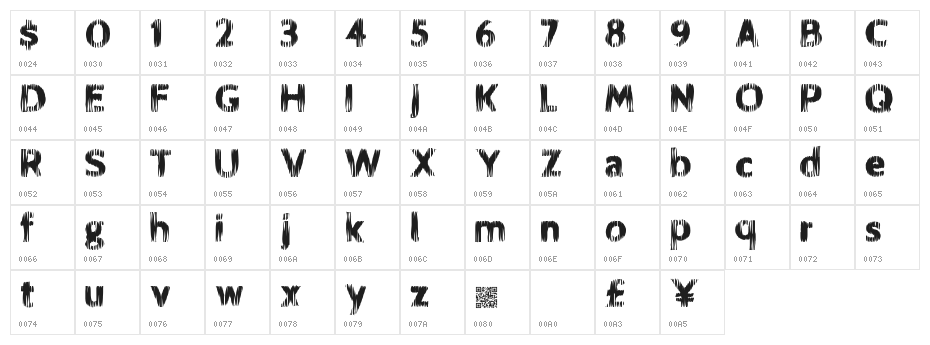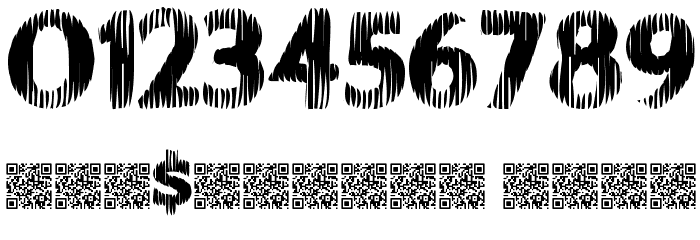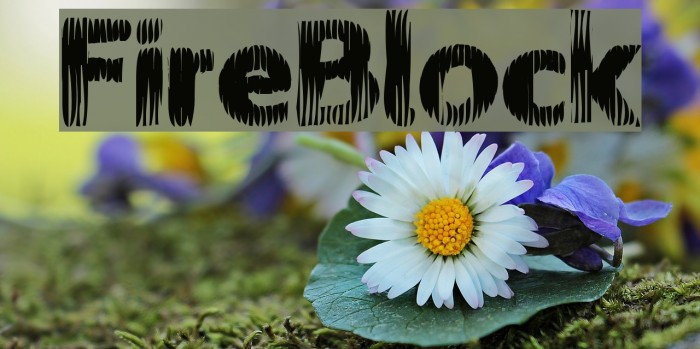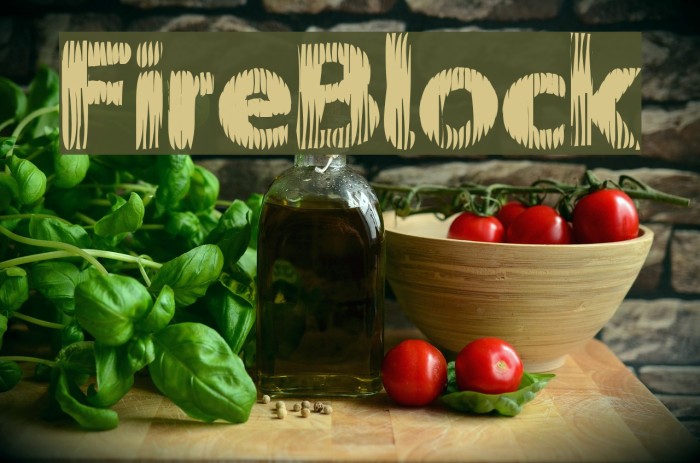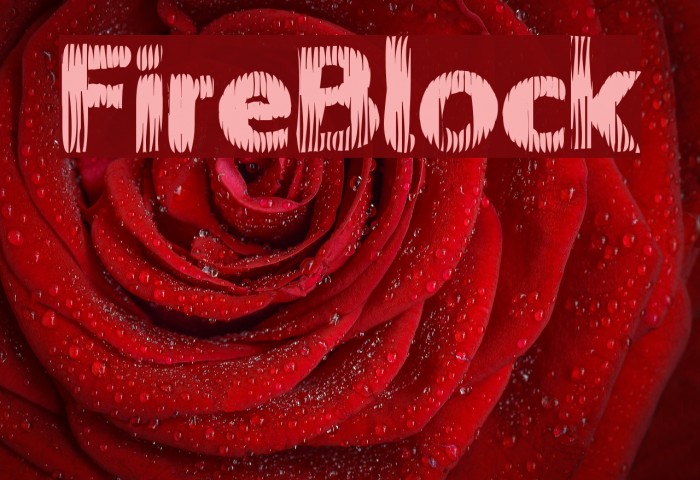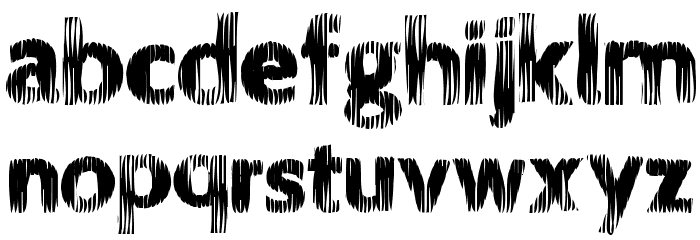
FireBlock Font
FireBlock Description
This font features a bold and dynamic style with a unique texture that resembles flames or streaks of fire. The characters are thick and robust, with an irregular pattern that gives them a sense of movement and energy. The uppercase and lowercase letters maintain a consistent design, while the numbers and special characters follow the same fiery theme. This font is eye-catching and designed to stand out, making it ideal for projects that require a strong visual impact. The texture within each character adds depth and interest, making it suitable for creative and artistic applications.